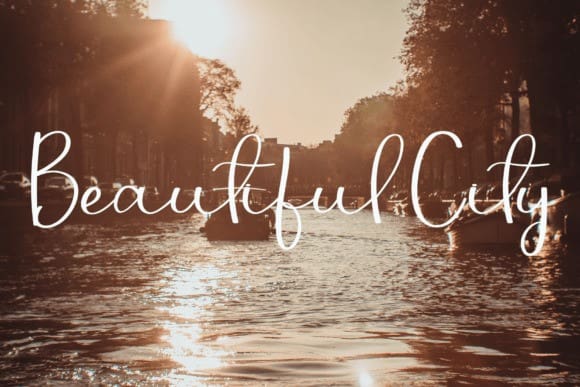
Autum Christmas Font
Autum Christmas Font, is a fun and quirky script font. Add it to your crafty ideas, and enjoy the results! It will look great -on cards, promotional ads, social media posts, product packaging, and others.